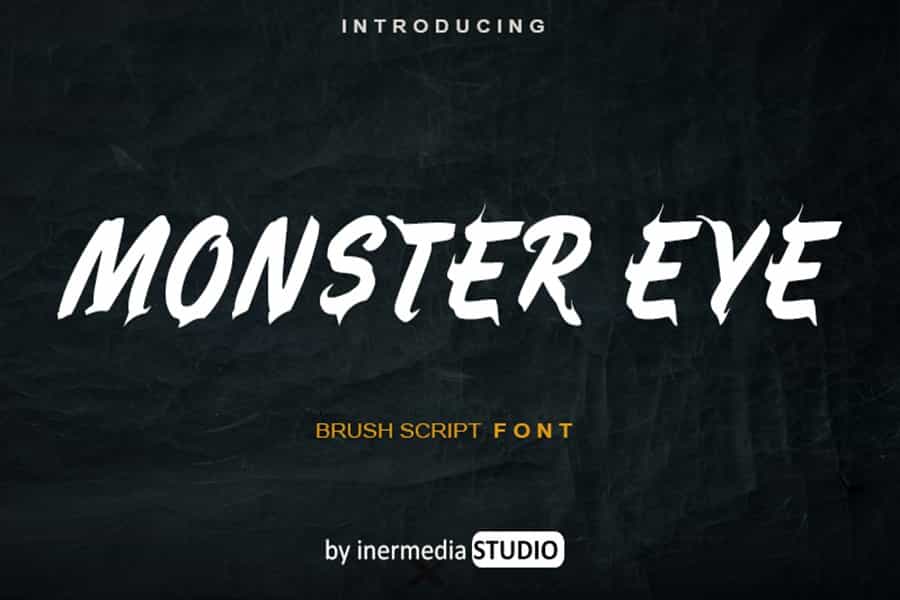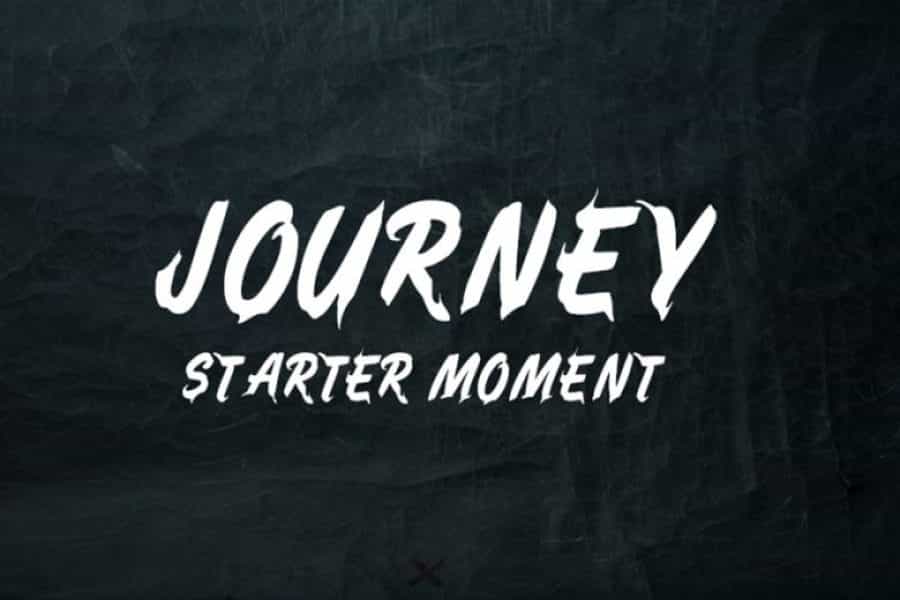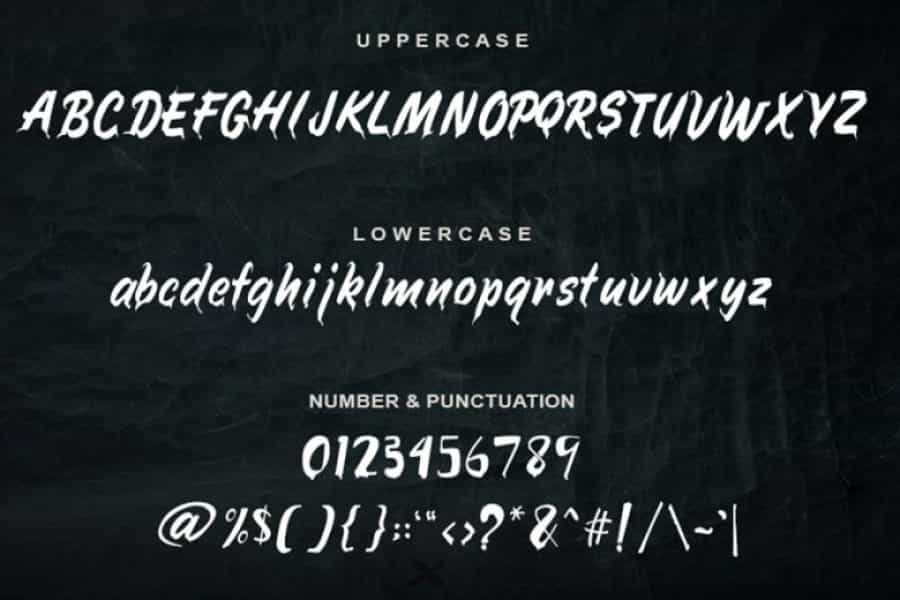
Monster Eye is an exquisite written brush script font carefully crafted for maximum impact. With its casual style and unassuming nature, Monster Eye makes for an easy read with great adaptability; perfect for busy backgrounds or as an eye-catching headline! Monster Eye looks wonderful wherever it is used!